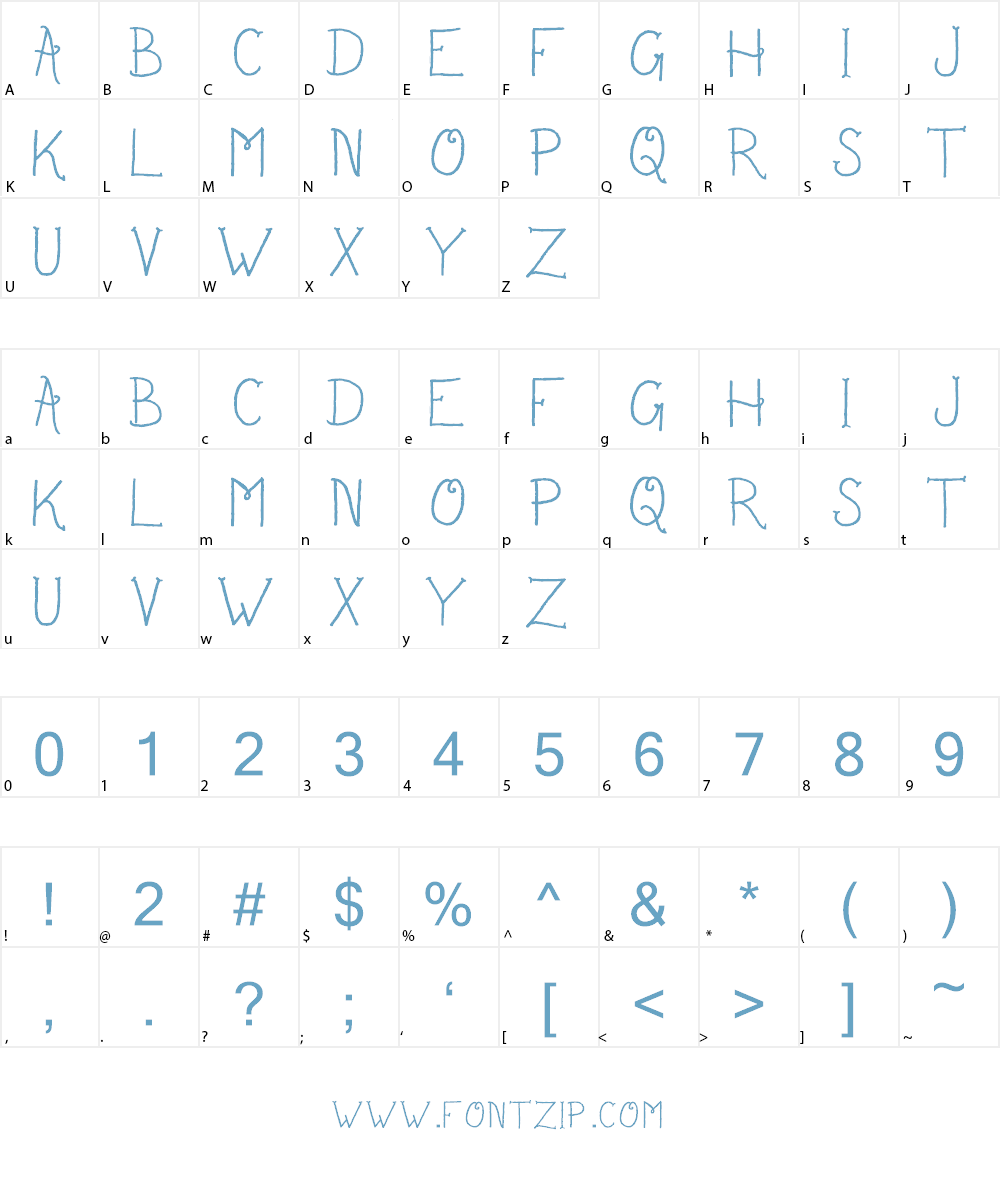
No one likes to be told that their flash paintings look fake, or digitally painted. All our traditional tattoo flash fonts are rough edged and imperfect in order to make your digital art look authentic.